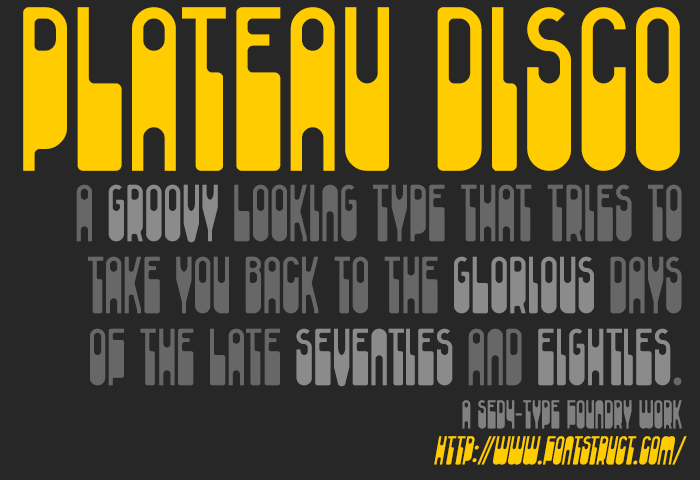
Ah, the 7eventies. Keep on Truck'n, Sexual Revolution, Protest Marches and Psychedelic Posters with Crazy Fonts.  Good job, Sed4!
Great retro look, the 7 looks like a Z though.